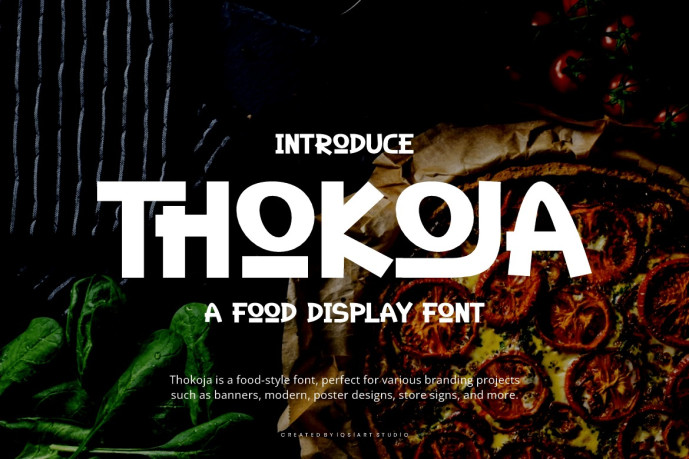
Thokoja – Food Ligatures Font
Thokoja – Food Ligatures Font is a food and authentic display typeface that suits a variety of design needs. We offer a wide range of themes and font styles — visit our profile to explore more and find the perfect style for your project.